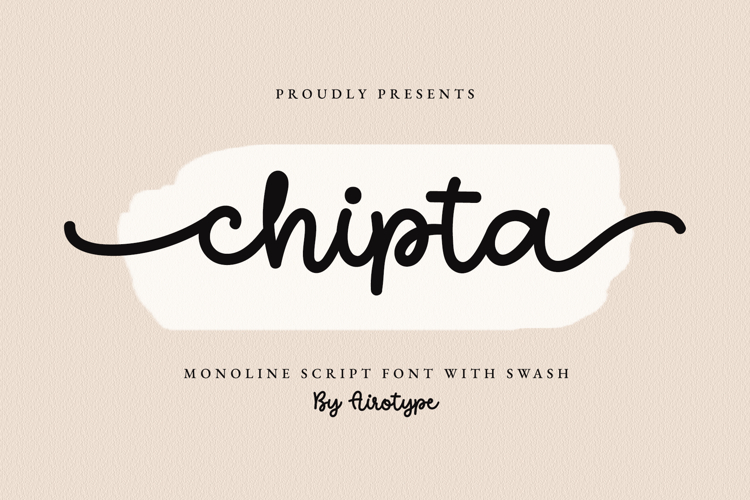
Chipta is bold and simple monoline cursive font. It is bouncy, cute, and playful.
This font has lowercase tail swash in front and back. Make sure you know how to access extra alternates in the program you are using.
Chipta is suitable cute font for design with cute-theme, such as greeting card, wedding invitation, t-shirt design, crafting, sticker, tumbler, sublimation, and many more.
- Uppercase & Lowercase (with lowercase swash)
- Numeral and Punctuation
- Most Multilingual Accent